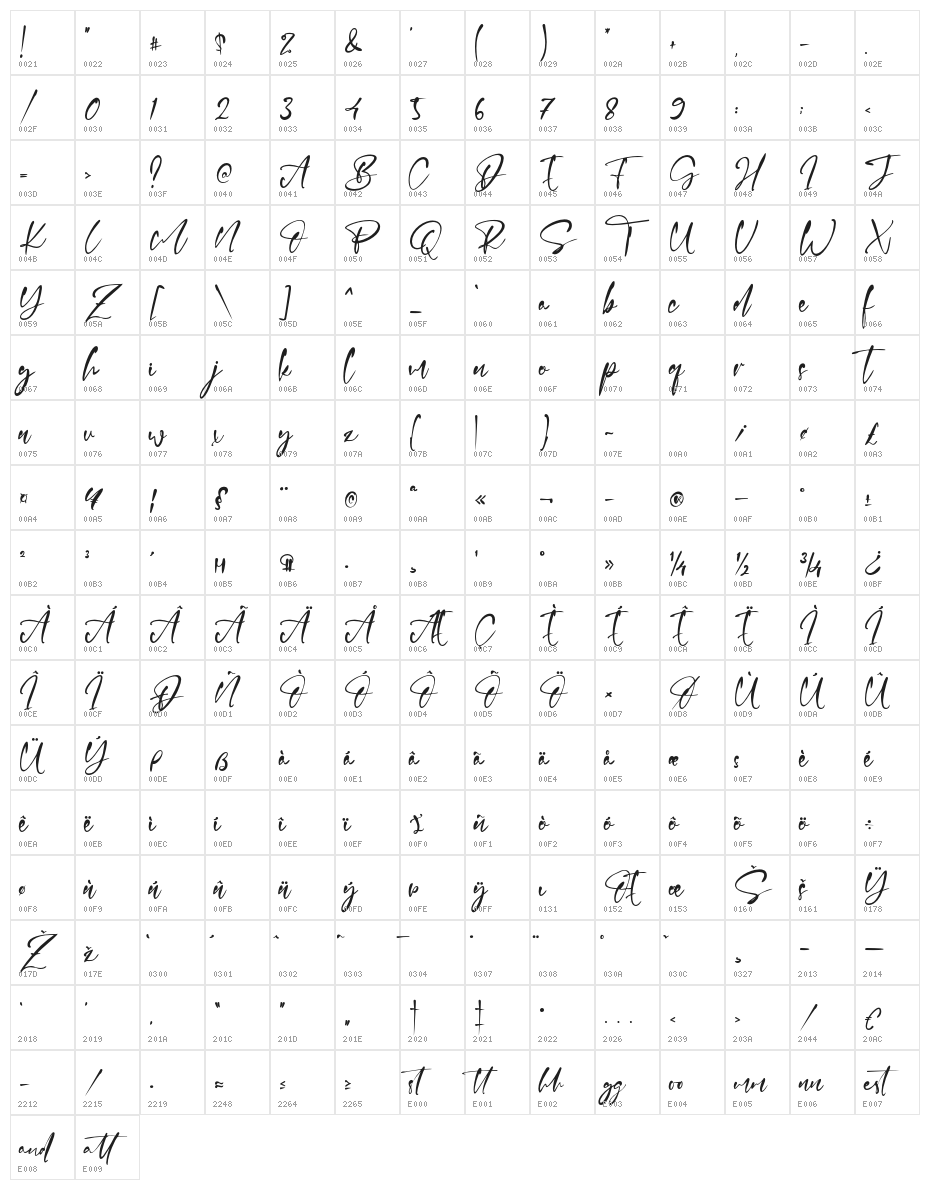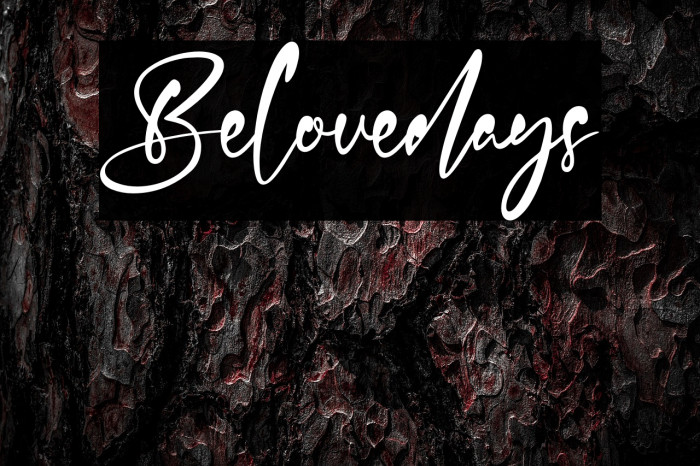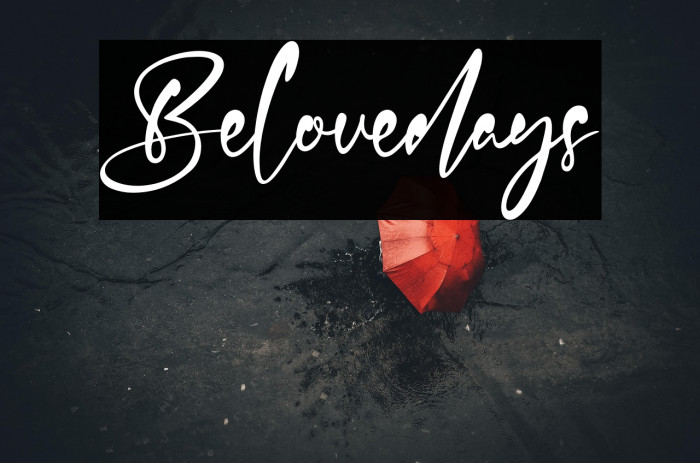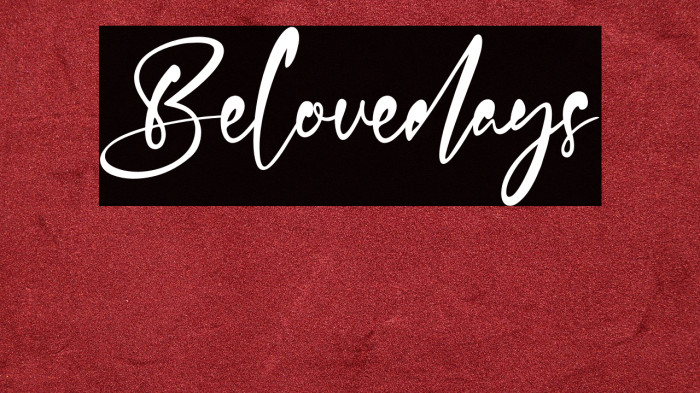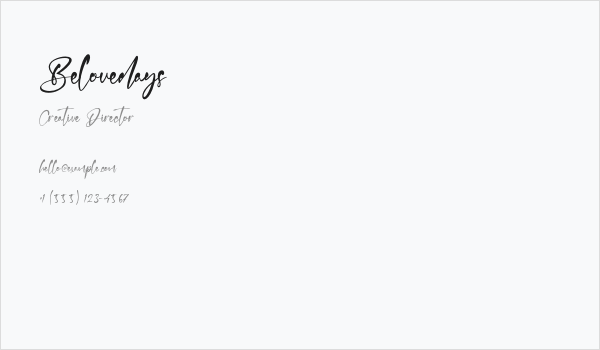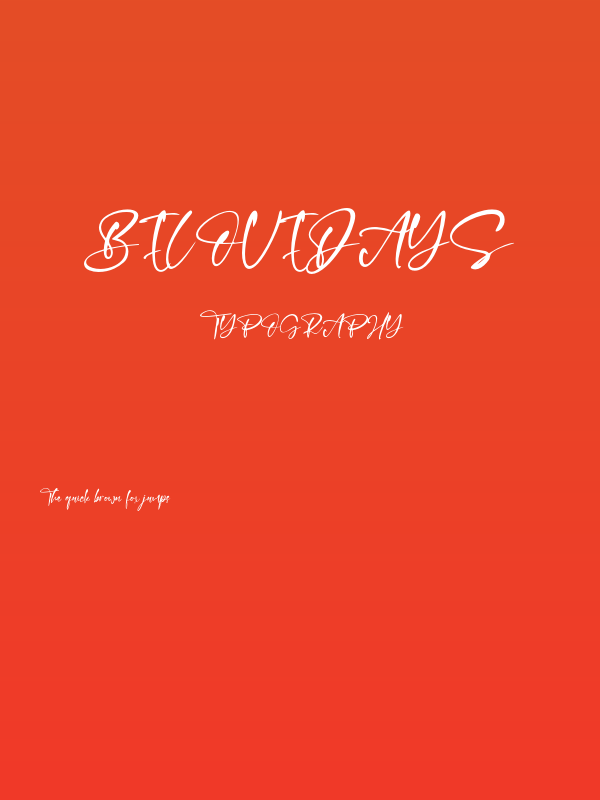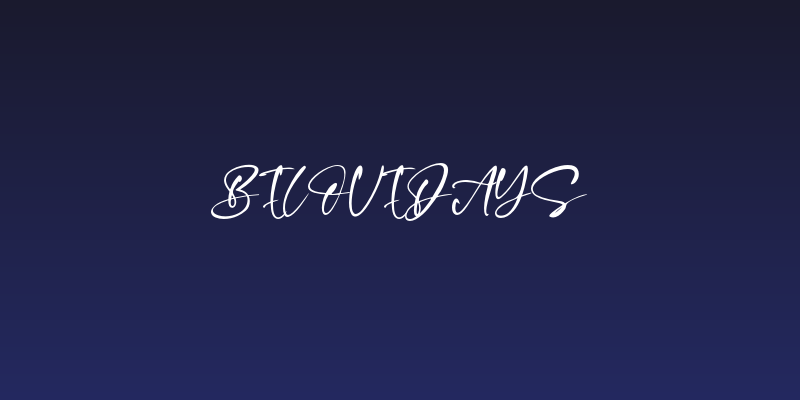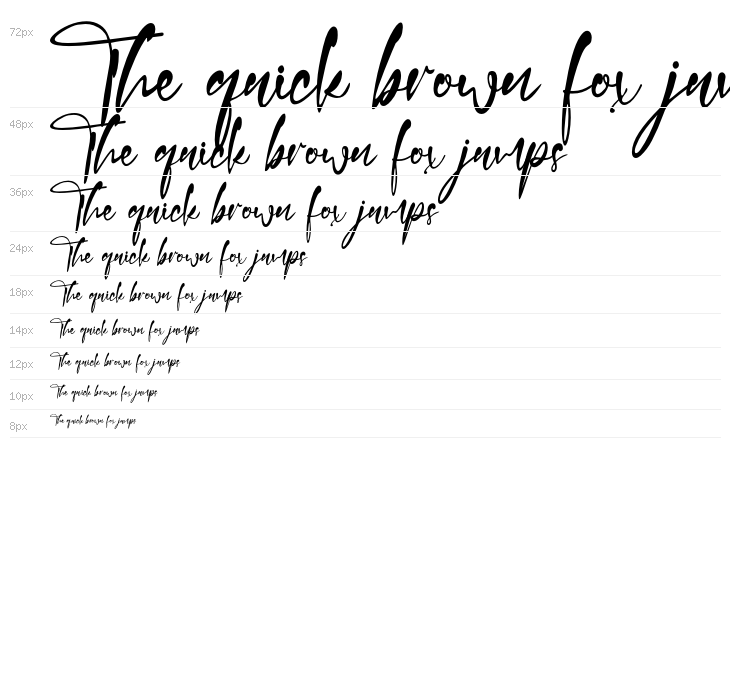
Belovedays Font
Belovedays Description
This font features a flowing, cursive style with elegant, sweeping strokes that give it a handwritten appearance. The uppercase letters are characterized by their graceful loops and curves, while the lowercase letters maintain a consistent fluidity, enhancing the overall script-like feel. Numbers and special characters are designed with the same attention to detail, ensuring a cohesive look across all elements. The font's artistic flair makes it suitable for projects that require a personal touch or a sense of sophistication.
Use CaseLogos, Invitations, Decorative text
Proposed ProjectsIdeal for wedding invitations, greeting cards, personal branding, and decorative quotes.